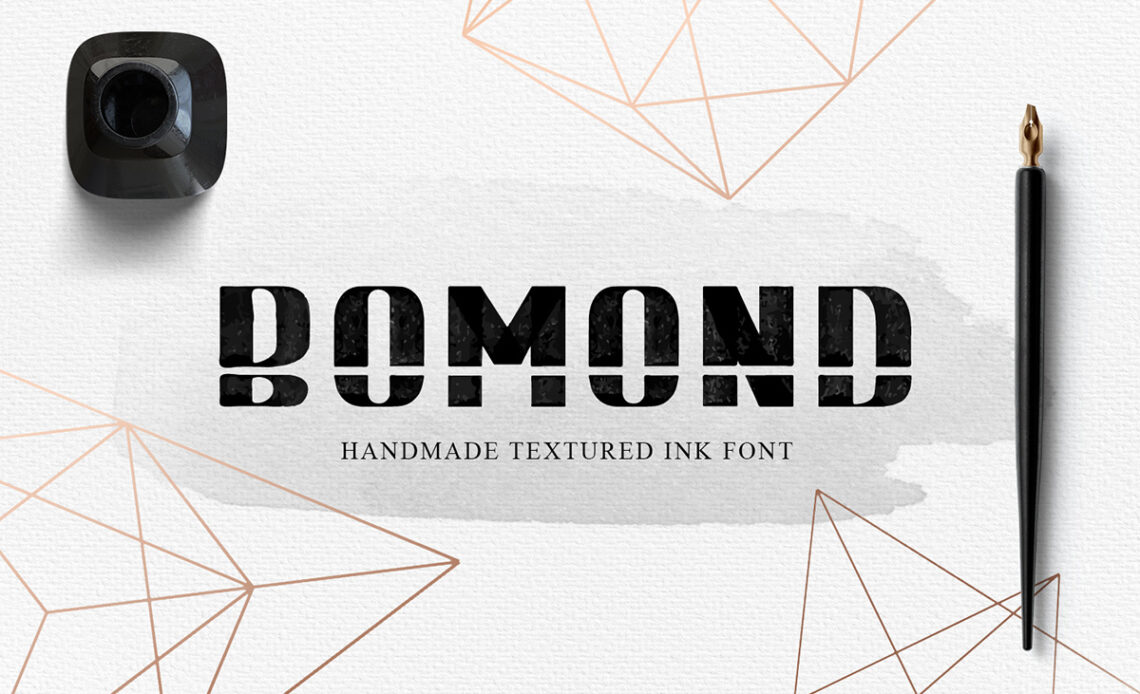
Bomond Font
Dive into the world of distinct lettering with Bomond Font, a display font that echoes modern and edgy aesthetics. Crafted with precision by the Cosmic Store, this brand new handmade textured ink font adds a touch of uniqueness to your designs, leaving a lasting impression on your audience.
With Bomond, you'll discover a font that's not just aesthetically pleasing but also incredibly versatile. Whether you're creating logos, branding materials, social media graphics, or website designs, Bomond adapts seamlessly to your creative vision. Its textured appearance adds depth and character to your designs, setting them apart from the ordinary.
The beauty of Bomond lies in its dual nature. While it appears textured in Illustrator and Photoshop CC, it retains a solid, black appearance in other software like Keynote, Word, and PowerPoint. This versatility makes it an ideal choice for a wide range of projects, ensuring consistent quality across different platforms.
Embrace the creative possibilities with Bomond Font. Its unique texture elevates your designs, giving them a handmade, authentic feel that resonates with your audience. With seamless integration into your favorite design software, Bomond becomes an indispensable tool for expressing your creativity.